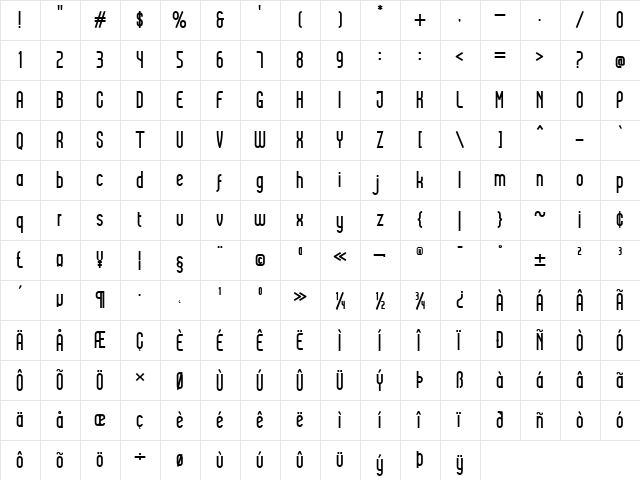
DELVON DEMO Font Preview
| Foundry | Suandana Ipandemade |
| Designer | Suandana Ipandemade |
Design Context for DELVON DEMO Typeface
DELVON DEMO offers clean, dependable letterforms without strong stylistic allegiance, making it a practical choice for designers who need flexibility.